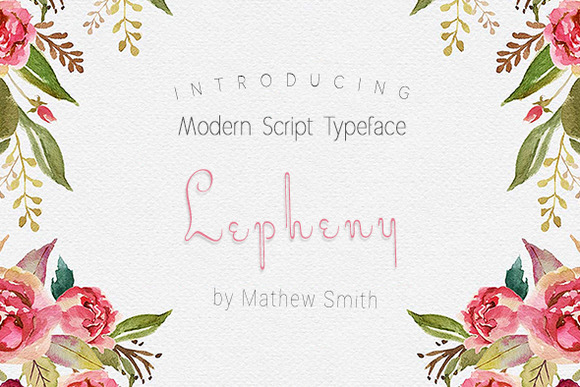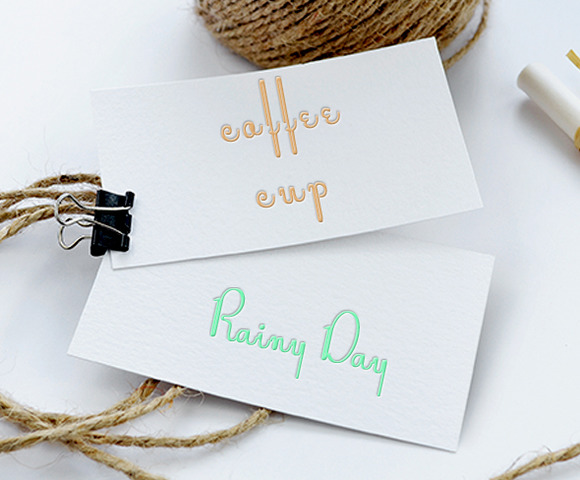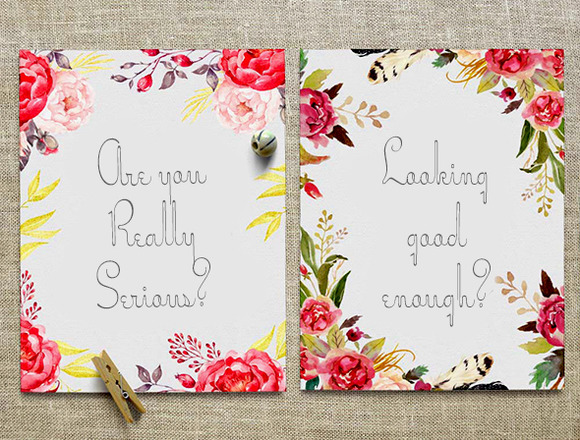
Lepheny Script Font
Introducing New Script typeface Lepheny. Full hand made and high details font. Can be used for various purposes like headings, signatures, logos, wedding invitations, t-shirts, flyers etc.
| Classification: | Handwritten Fonts, Script Fonts |